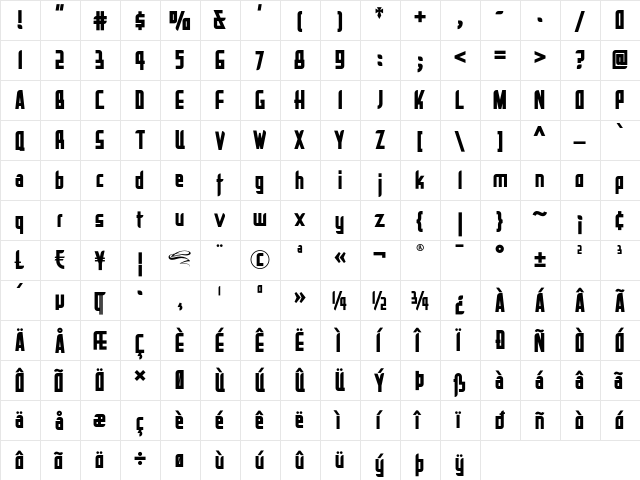
La Reyna Catalina NF Regular
| Foundry | Nick's Fonts |
| Designer | Nick Curtis |
Design Context for La Reyna Catalina NF Typeface
La Reyna Catalina NF is a composed and adaptable typeface that performs quietly and consistently across a wide range of design contexts.